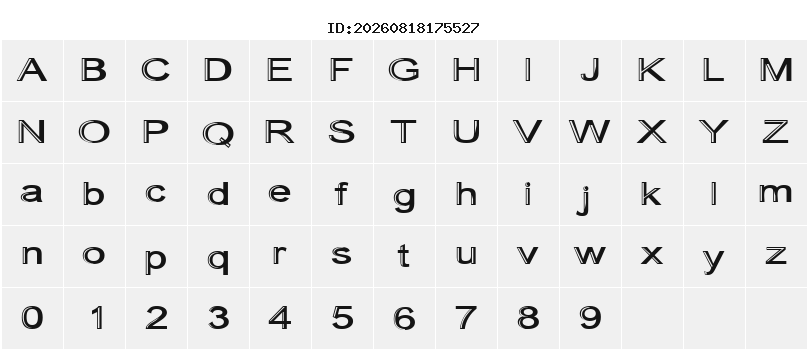
Skunkline Preview
About Skunkline.ttf
Skunkline.ttf is a modern, elegant sans-serif font designed for ultimate readability and visual harmony. Perfect for branding, headlines, web design, and print materials.